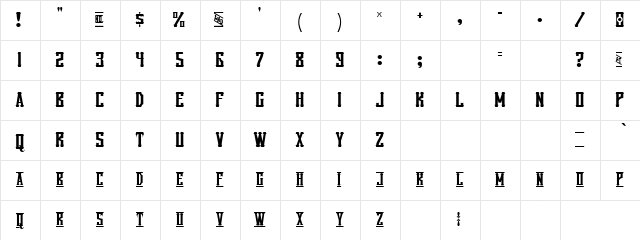
Sonata Dazz Regular
Design Context for Sonata Dazz Typeface
Sonata Dazz is a composed and adaptable typeface that performs quietly and consistently across a wide range of design contexts.